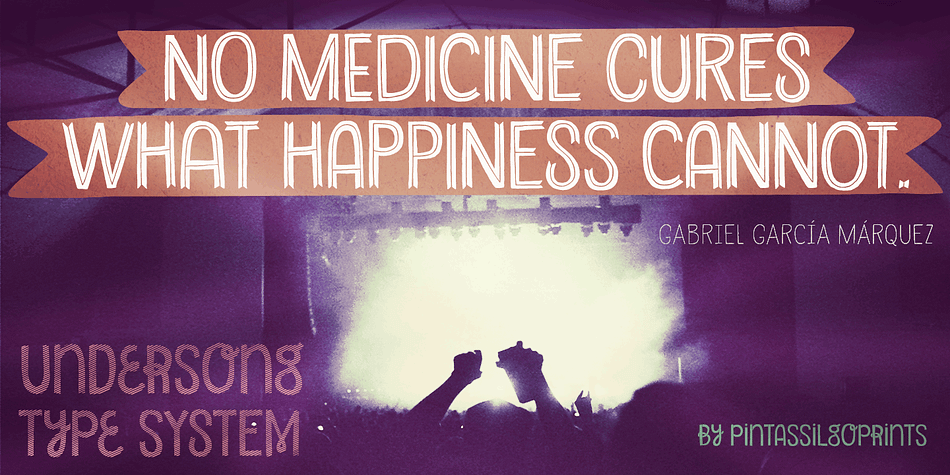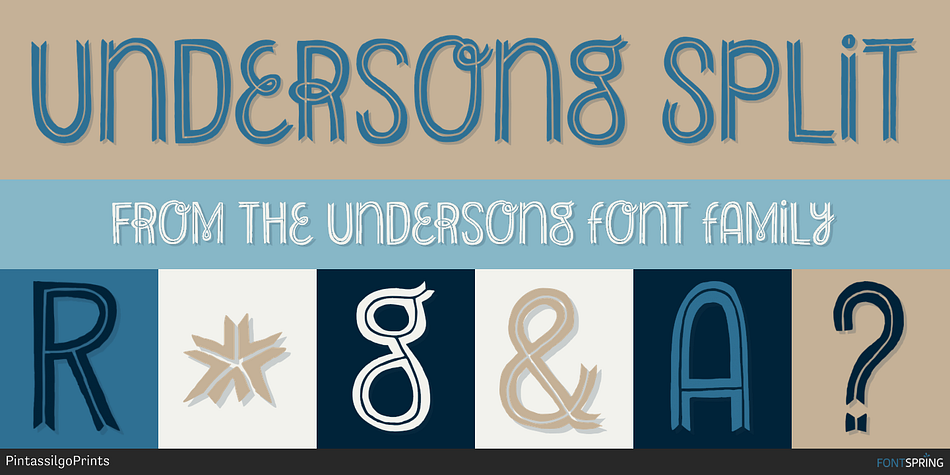
Undersong Split
Undersong is a novelty and hand display font family. This typeface has thirteen styles and was published by PintassilgoPrints.
Undersong brings 13 hand-drawn stackable fonts which can be combined in many tasty ways.
Undersong brings 13 hand-drawn stackable fonts which can be combined in many tasty ways. Layered or not, you’ll see that these fancy ones work together scrumptiously well.
For added flavor each font brings at least 3 variations for each letter, pretty cool for achieving that charming handmade look.
T-shirts, posters, book covers, packaging projects, Undersong will nicely fit many design applications.
Some great font families out there are said to be workhorses.
Figure this one like a work-unicorn: perfect for fantastic designs.